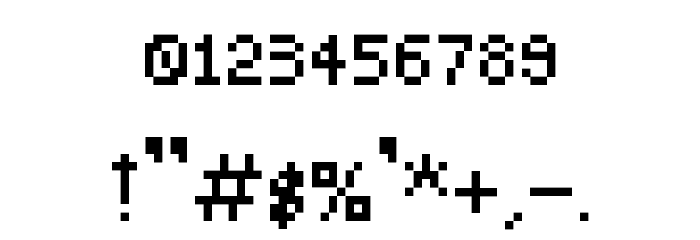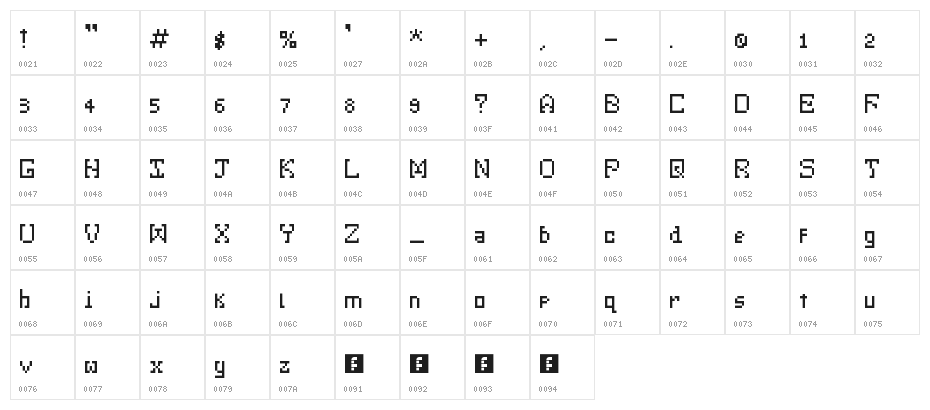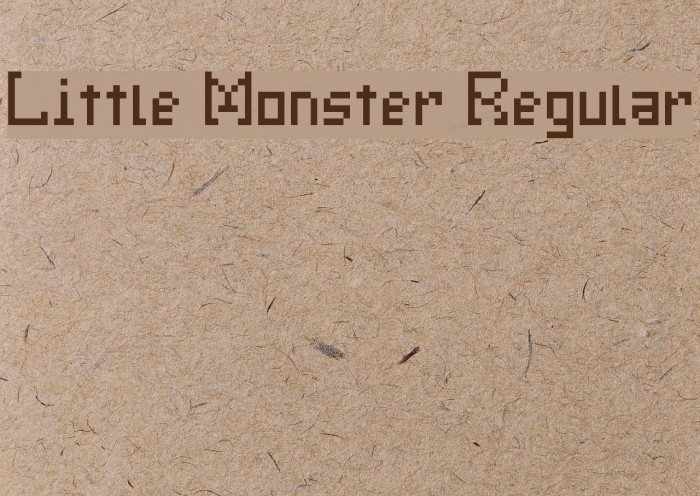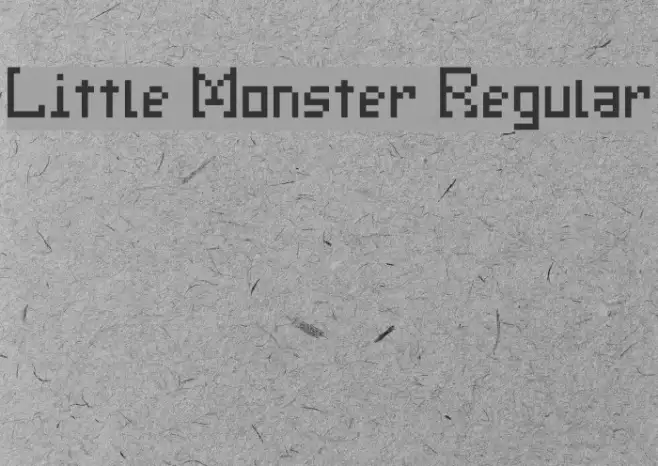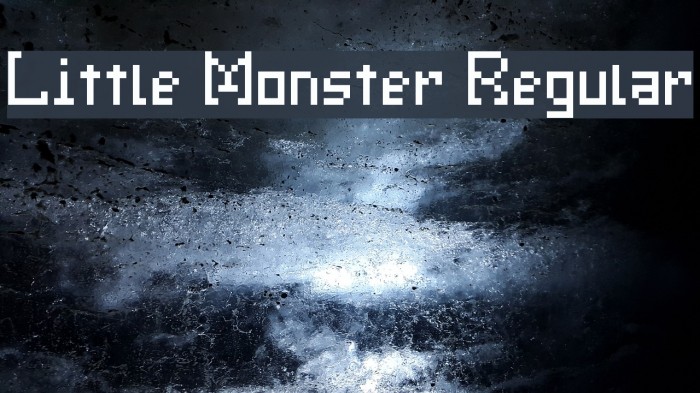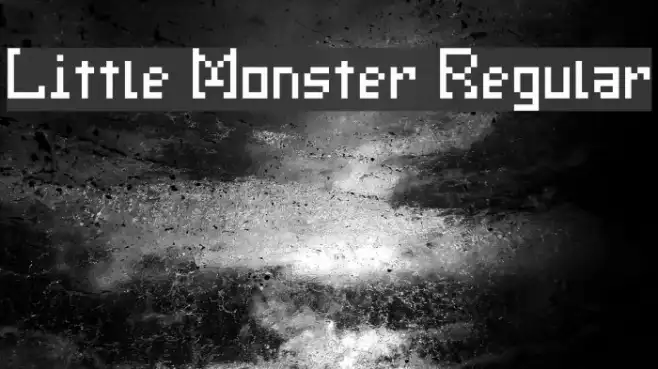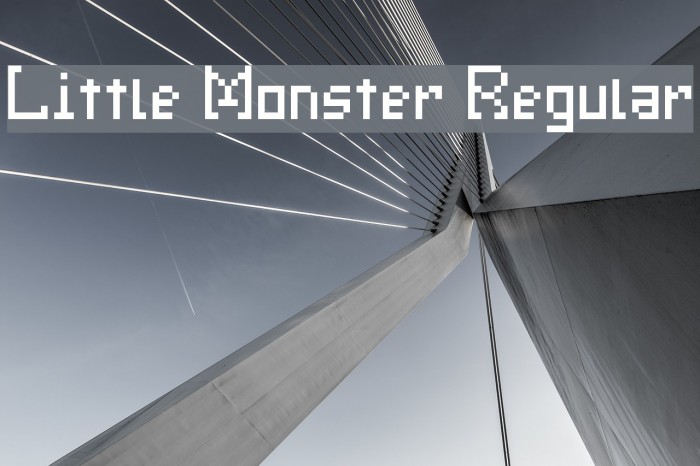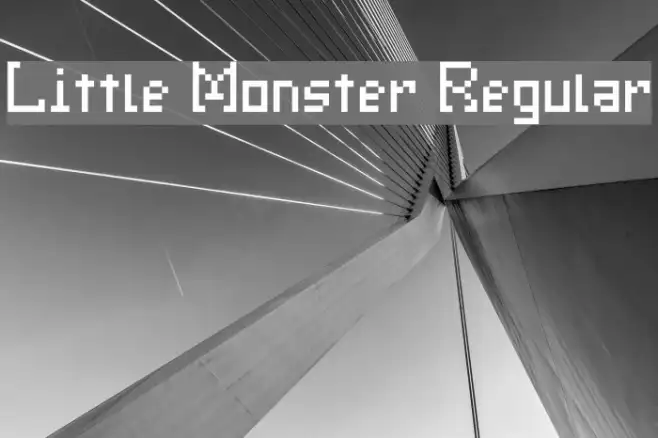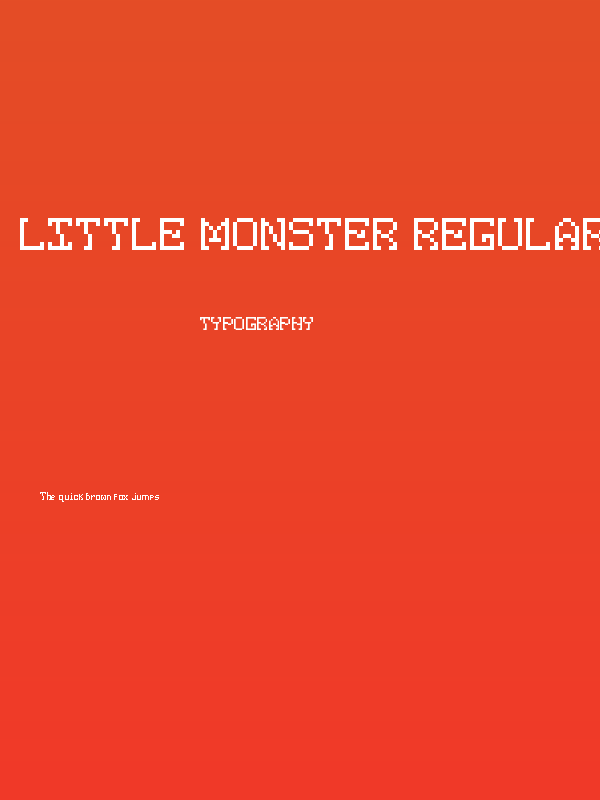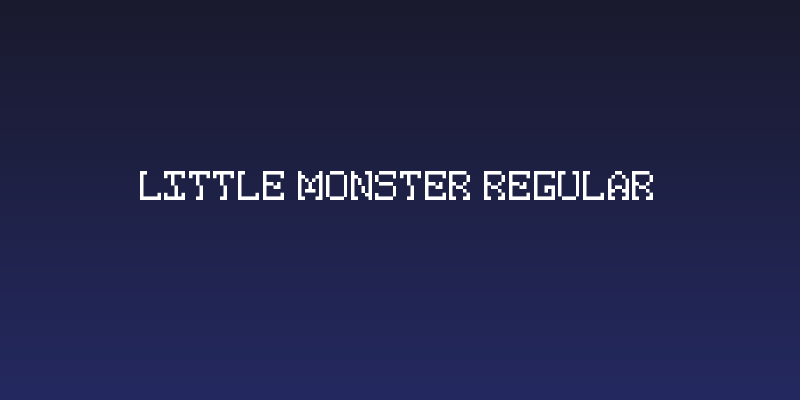
Little Monster Regular Font
Little Monster Regular Description
This font features a pixelated, blocky design reminiscent of early digital or video game aesthetics. Each character is constructed with a uniform grid-like structure, giving it a retro, nostalgic feel. The uppercase and lowercase letters maintain a consistent height, enhancing readability while preserving the playful, quirky nature of the design. Numbers and special characters follow the same pixelated style, ensuring a cohesive look across all glyphs. The font's simplicity and geometric form make it ideal for projects that aim to evoke a sense of nostalgia or digital charm.
| Use Case | Headlines, Logos, Digital Art |
| Proposed Projects | Ideal for video game graphics, retro-themed posters, digital art projects, and playful branding. |